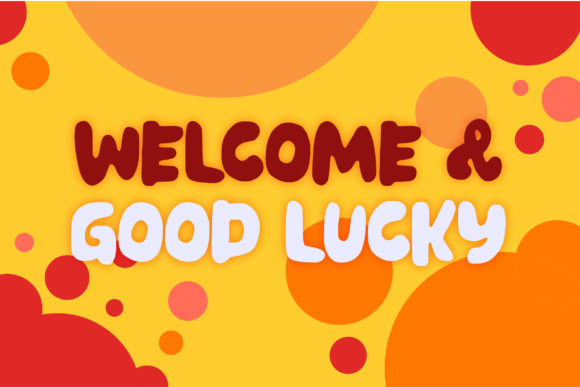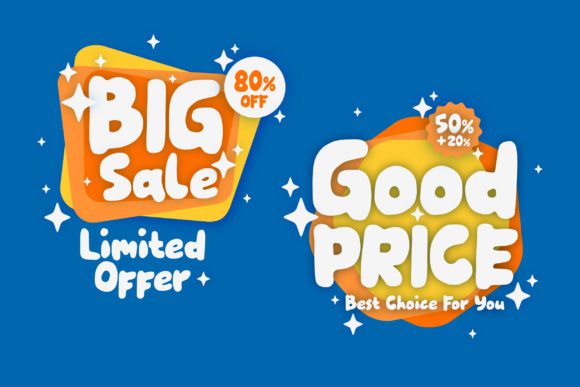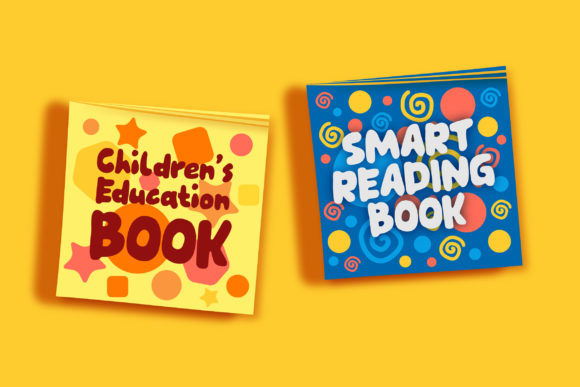
Introduction to Hey Kidstoon Font
Hey Kidstoon celebrates all things fun.
It will add a cheerful and hilarious feel to any kid-friendly or school-themed crafting project .
Hey Kidstoon Font offers exceptional quality and versatility, making it a valuable addition to your design toolkit. Whether you’re creating for personal projects or commercial use, Hey Kidstoon Font delivers professional results.